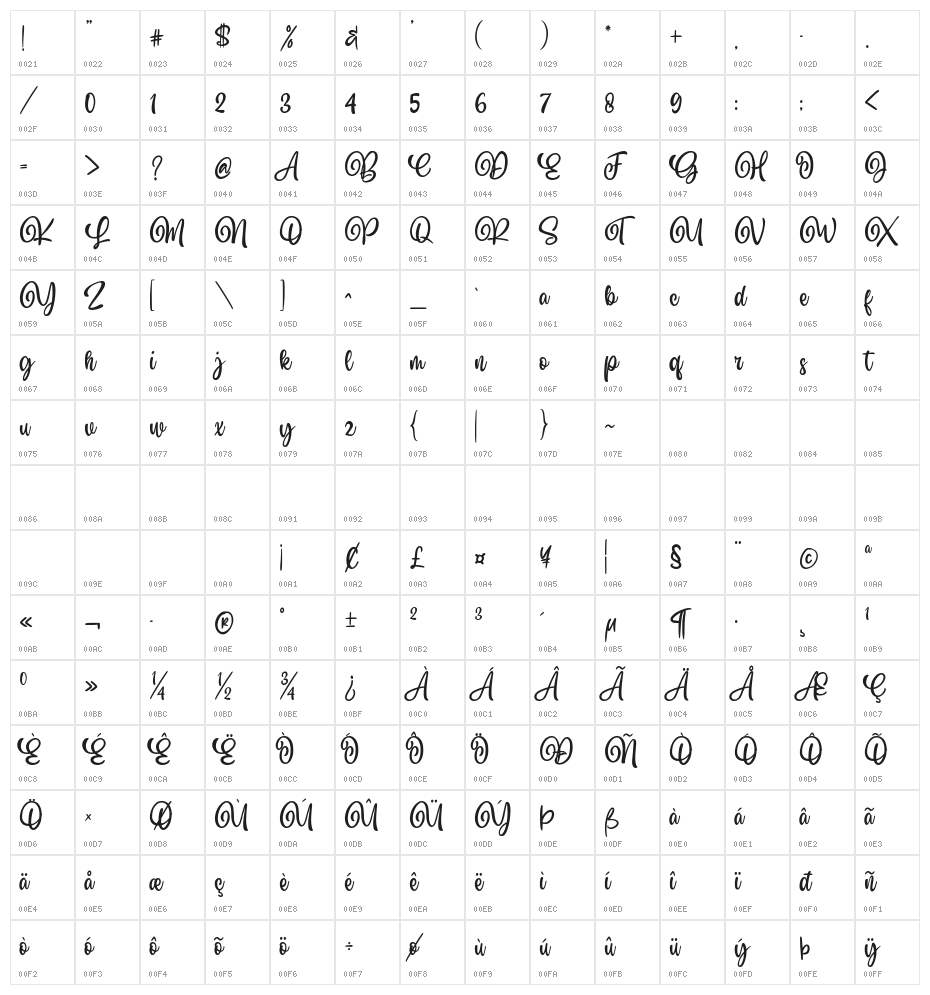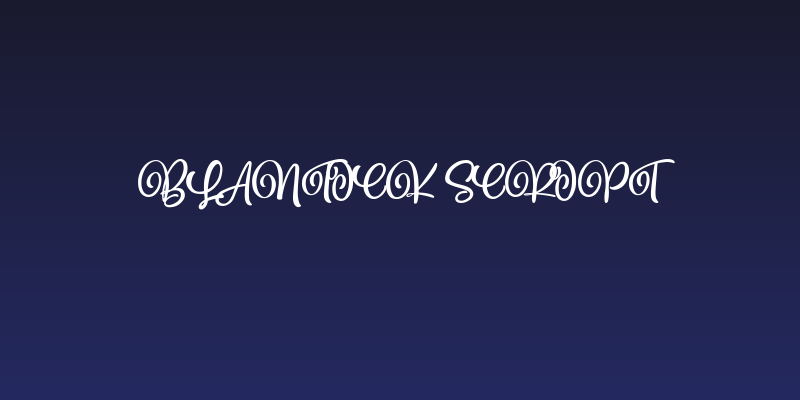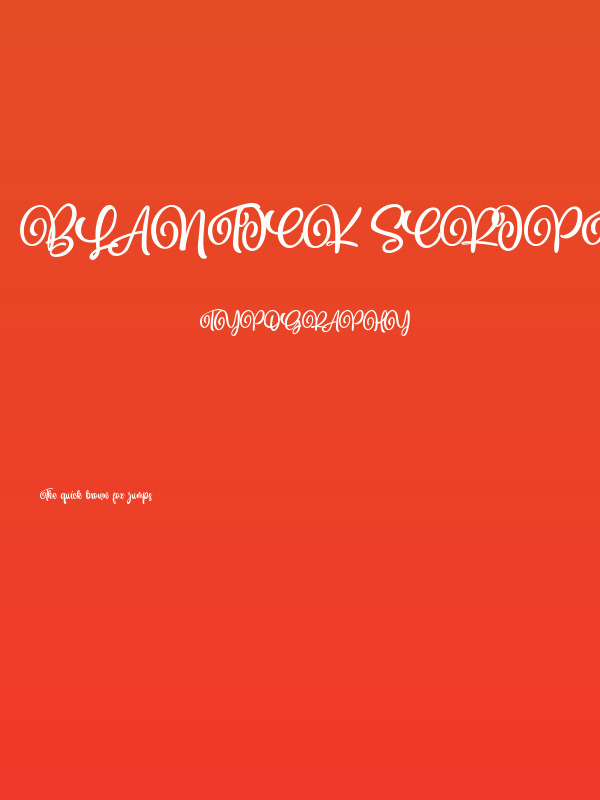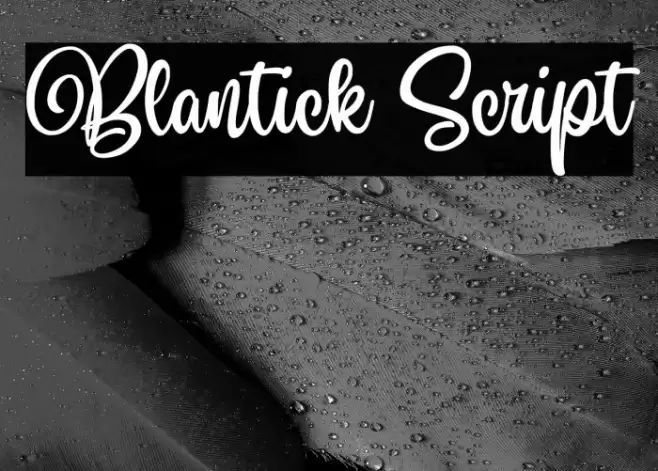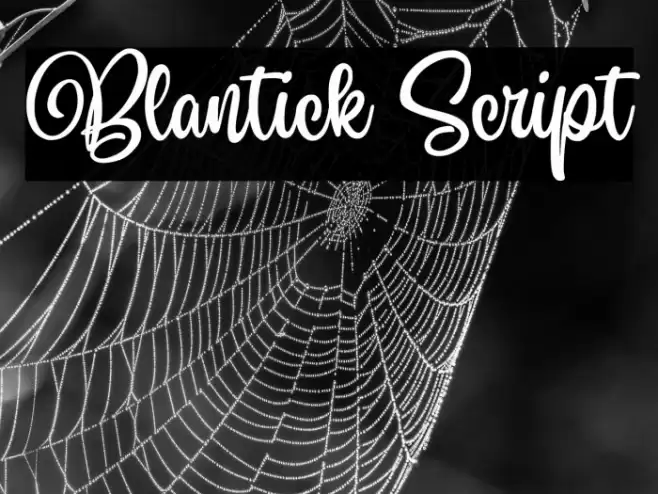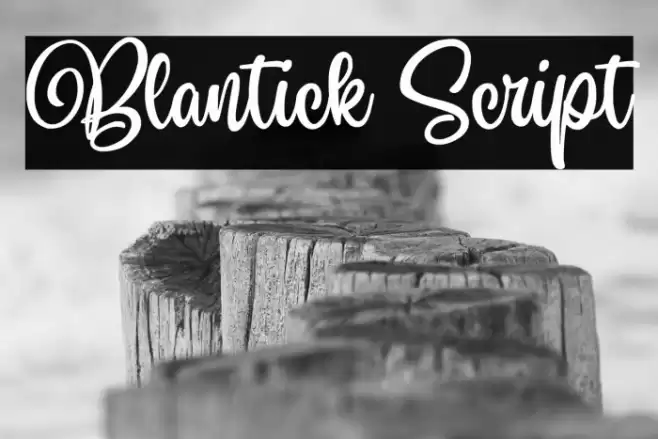
Blantick Script Font
Blantick Script Description
This font features a flowing, cursive style that exudes elegance and sophistication. The letters are interconnected with smooth, sweeping strokes, giving it a handwritten appearance. The uppercase letters are bold and prominent, while the lowercase letters maintain a consistent flow, enhancing readability. The numerals are well-integrated into the script style, maintaining the overall aesthetic. Special characters are creatively designed, adding a touch of flair to the font. This script font is perfect for projects that require a personal, artistic touch.